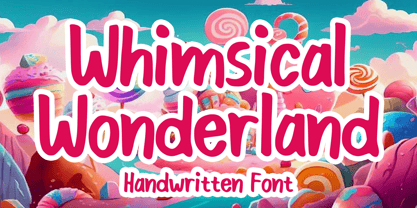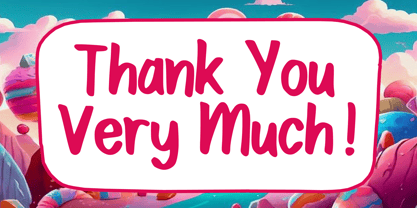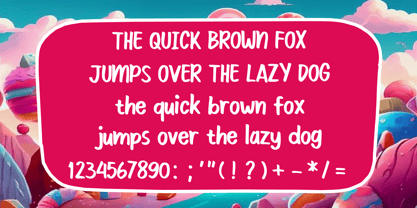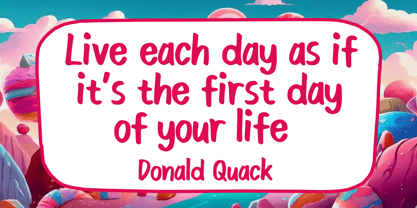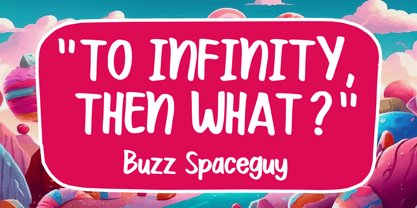
Whimsical Wonderland
by Mvmet
The Whimsical Wonderland Font Family was designed by Gabriel Valentinus and published by Mvmet. Whimsical Wonderland contains 1 styles. More about this family
Whimsical Wonderland is a fun, playful comic handwritten font, inspired by fantasy cartoons. It will elevate a wide range of design projects to the highest level. You can use this font for many design ideas such as stickers, t-shirt designs,merchandise designs, amazing logo designs, magazine or book covers, comics, cartoon drawings, daily typing, and many more. This font will add a super cool touch to your designs!
Designers: Gabriel Valentinus
Foundry: Mvmet